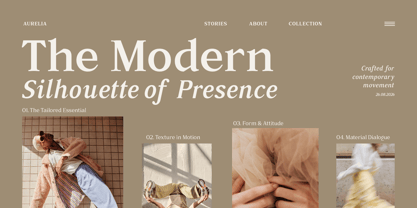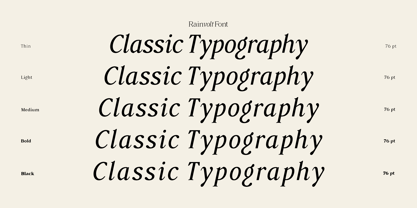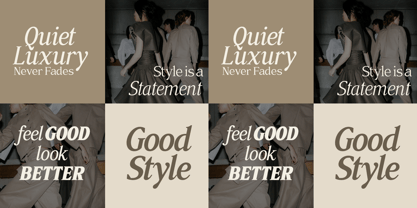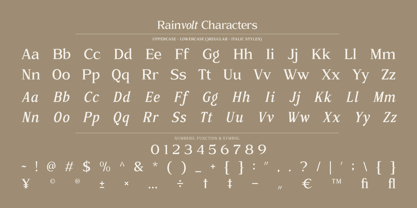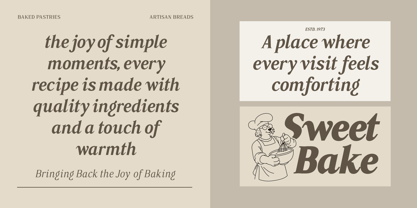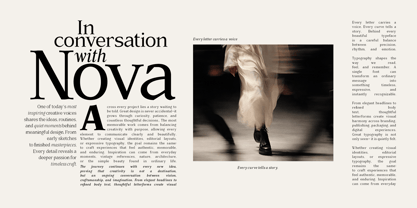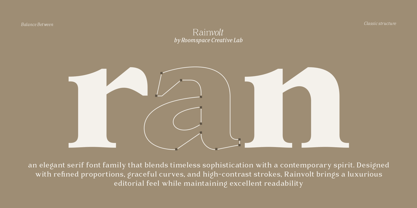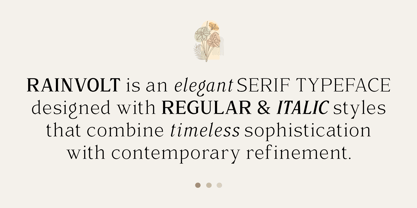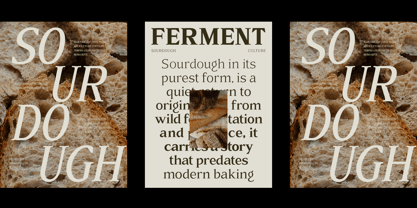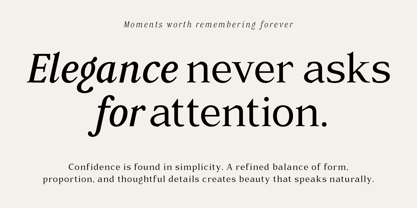
Rainvolt
Rainvolt is an elegant high-contrast serif typeface inspired by classic typography, contemporary fashion, editorial design, and refined visual identities. It features graceful curves, refined proportions, sharp serifs, and expressive italic forms that create sophisticated headlines while maintaining excellent readability.
Designed primarily for display and editorial use, Rainvolt is ideal for branding projects that require a timeless yet contemporary personality. Whether you're creating logos, fashion branding, magazines, wedding stationery, product packaging, beauty identities, posters, invitations, or social media visuals, this typeface brings a refined editorial presence to every composition.
The family includes five weights ranging from Thin to Black, along with matching Italic styles, giving you greater flexibility to create contrast, hierarchy, and expressive typography across different design applications.